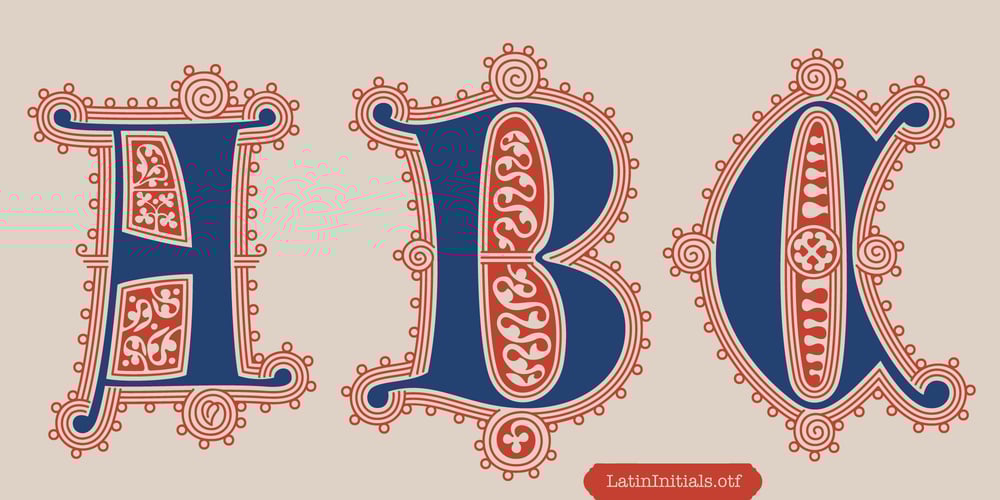
Latin Initials Font Family was designed by Roman Korolev and published by Kaer. Latin Initials contains 3 styles and family package options. Here is my classic style red and blue Latin Initials font family inspired by XIV century publications gradual. The strange symbolic grotesque figures of the XII century gave way to naturalistic depictions of flowers.A manuscript from the first half of the XIV century is an excellent example of an illuminated gradual, one of the main liturgical books of the Roman Catholic Church. It intended for the choir and containing the texts and notes of the hymns of the Mass. Graduals, as a rule, were executed in the form of very large format codes, written in large letters. The most important sections were highlighted with large ornamental initials I used for the inspiration. The decoration of the codex consists of two-color filigree initials. On the last page of the manuscript there is an owner’s note indicating that the gradual belonged to Francesco Lunani from Gubbio.What’s included? A-Z Uppercase (lowercase are the same) Numbers —You can use color fonts in PS CC 2017+, AI CC 2018+, ID CC 2019+, macOS 10.14 Mojave+ Note that the Canva & Corel & Affinity doesn’t support color fonts!—Feel free to request any help you need: kaer.pro@gmail.comThank you!